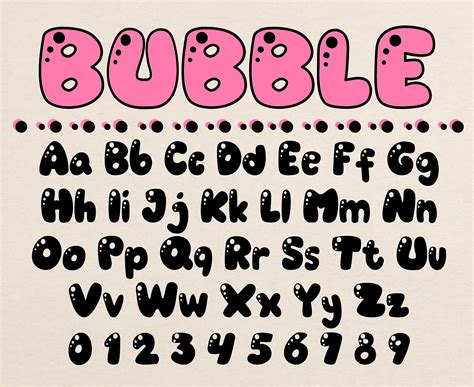
Readers, have you ever wanted to add a touch of whimsy and playfulness to your designs? Perhaps you're creating invitations, social media posts, or even just personal notes, and you're looking for a font that captures a sense of joy and lightheartedness. If so, then you've probably stumbled upon the enchanting world of cute bubble fonts. These fonts, with their rounded edges and bouncy letters, have a way of instantly transforming any design into something charming and captivating.
What are Cute Bubble Fonts?
Cute bubble fonts, also known as "balloon fonts" or "rounded fonts," are characterized by their playful, rounded letterforms. They often have a whimsical and childlike feel, making them perfect for projects that require a touch of fun and personality. These fonts are incredibly versatile, finding their way into a wide range of applications, including:
- Invitations and Greeting Cards: Cute bubble fonts can add a touch of whimsy to invitations for birthdays, baby showers, or any other celebration. They make the occasion feel special and memorable.
- Social Media Graphics: These fonts are great for creating eye-catching social media posts, especially for brands that aim for a playful and engaging presence.
- Logos and Branding: For businesses targeting a younger audience or promoting products with a fun and playful vibe, cute bubble fonts can be a unique and memorable choice for their logos.
- Website Design: Adding a splash of personality to website headers, buttons, or even body text can improve user engagement and create a more inviting experience.
- Personal Projects: Whether you're designing a personalized planner, creating a custom t-shirt, or simply writing a letter to a loved one, cute bubble fonts can add a touch of charm and individuality.
Exploring the World of Cute Bubble Fonts
The beauty of cute bubble fonts lies in their diversity. You can find styles ranging from classic and simple to bold and decorative, each with its own unique personality. Let's explore some of the most popular categories of cute bubble fonts:
Classic Bubble Fonts
These fonts are characterized by their simple, rounded letterforms and lack of decorative elements. They are versatile and can be used for a wide range of projects.
Decorative Bubble Fonts
These fonts add a touch of flair to your designs with decorative elements like swirls, hearts, and other embellishments. They are perfect for creating invitations, cards, and other projects that require a playful and eye-catching aesthetic.
Bold Bubble Fonts
If you want a font that makes a statement, bold bubble fonts are the way to go. Their thick strokes and rounded shapes create a sense of energy and excitement.
Script Bubble Fonts
For a touch of elegance and whimsy, consider script bubble fonts. They combine the rounded letterforms of bubble fonts with the flowing strokes of script fonts.
The internet is a treasure trove of free fonts, and cute bubble fonts are no exception. Here are some of the best places to find them:
Google Fonts
Google Fonts is a reliable and extensive library of free fonts, including a vast collection of cute bubble fonts. You can filter by style, weight, and other criteria to find the perfect font for your project.
DaFont
DaFont is a popular website that offers a wide range of free fonts, including a dedicated section for cute bubble fonts. You can browse by category, popularity, or even search for specific keywords.
FontSpace
FontSpace is another excellent resource for free fonts, with a diverse selection of cute bubble fonts available for download. You can filter by style, license, and other parameters to narrow down your search.
Creative Market
Creative Market is known for its high-quality design assets, and it also features a curated collection of free fonts, including some adorable bubble fonts.
Tips for Using Cute Bubble Fonts
While cute bubble fonts are undeniably charming, using them effectively requires a bit of thought and consideration. Here are some tips to keep in mind:
Choose the Right Font for the Occasion
Not all cute bubble fonts are created equal. Some are more playful and whimsical, while others are more elegant and sophisticated. Choose a font that aligns with the tone and style of your project.
Use Font Pairing Strategies
A well-paired font combination can enhance the overall visual appeal of your designs. Consider pairing a cute bubble font with a more classic or sans-serif font for contrast and balance.
Avoid Overuse
While cute bubble fonts are great for adding a touch of personality, using them excessively can make your designs look cluttered and amateurish. Use them strategically and sparingly.
Pay Attention to Readability
Ensure that the font you choose is legible enough for your intended audience. Consider the font size, letter spacing, and overall design to make sure your text is easy to read.
The Joy of Cute Bubble Fonts
In a world of digital design, cute bubble fonts offer a unique and delightful way to express your creativity. They can add a touch of personality, whimsy, and happiness to any project. Whether you're a professional designer or just experimenting with fonts for fun, exploring the world of free cute bubble fonts is a journey that's sure to inspire and delight.
FAQ
What are some popular examples of cute bubble fonts?
Some popular examples of cute bubble fonts include:
- Bubblegum Sans
- Cherie
- Bangers
- Comfortaa
- Press Start 2P
Can I use cute bubble fonts for commercial purposes?
The answer depends on the specific font and its license. Some fonts are available for personal use only, while others allow for both personal and commercial use. Always check the font's license before using it for commercial projects to avoid any legal issues.
How can I learn more about using fonts effectively?
There are many online resources and tutorials available that can help you learn more about using fonts effectively. You can find articles, videos, and courses on topics such as typography basics, font pairing, and creating visually appealing layouts. Experimenting with different fonts and techniques is also a great way to develop your skills.